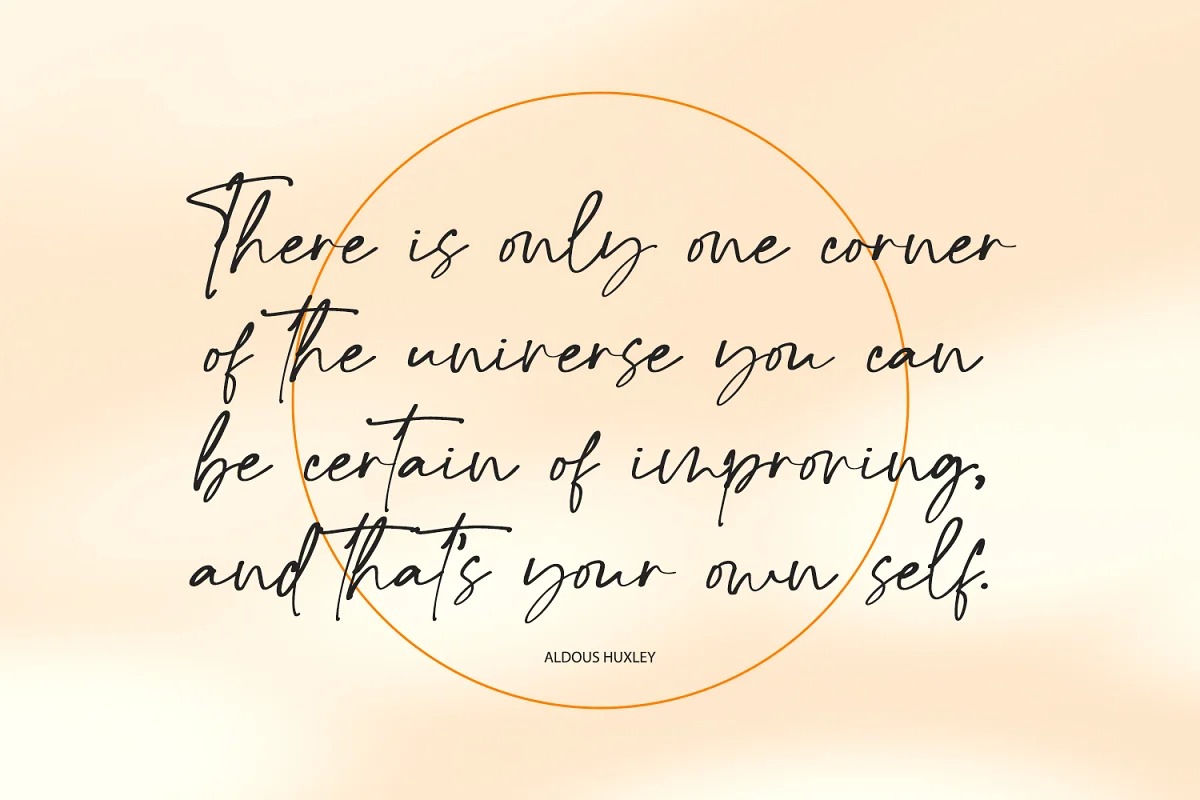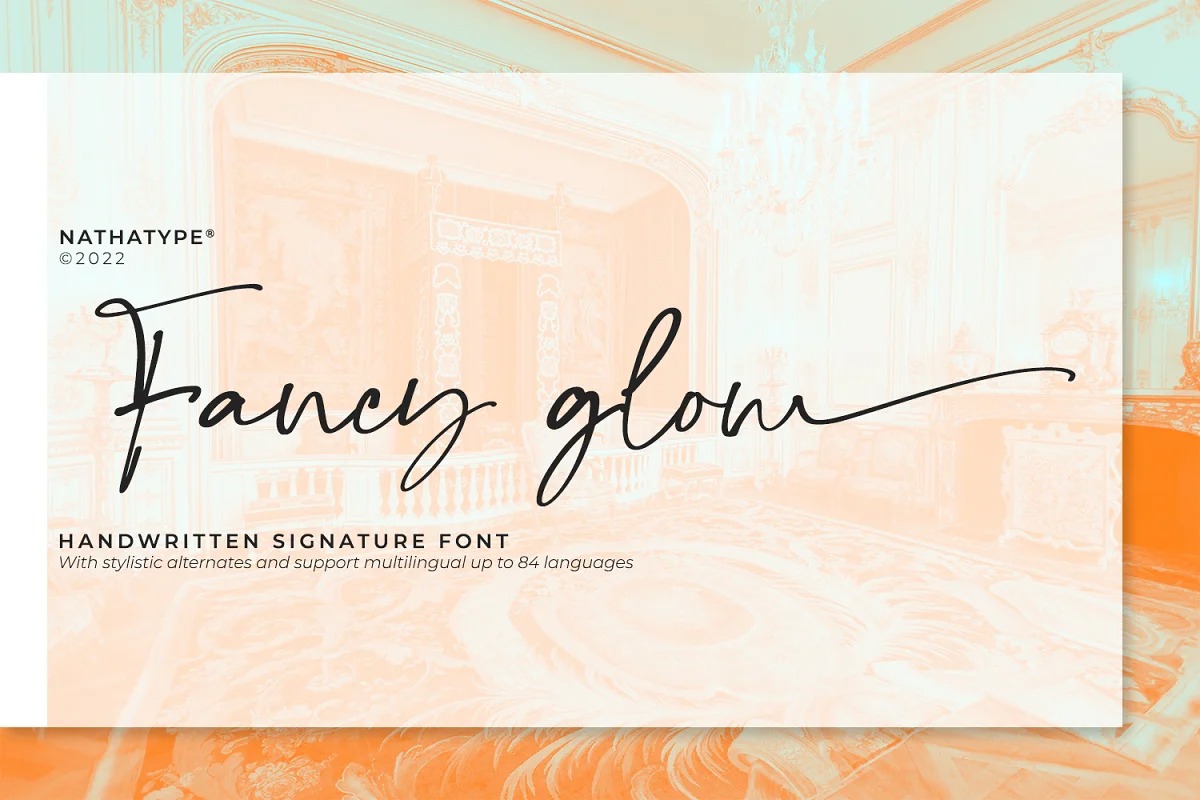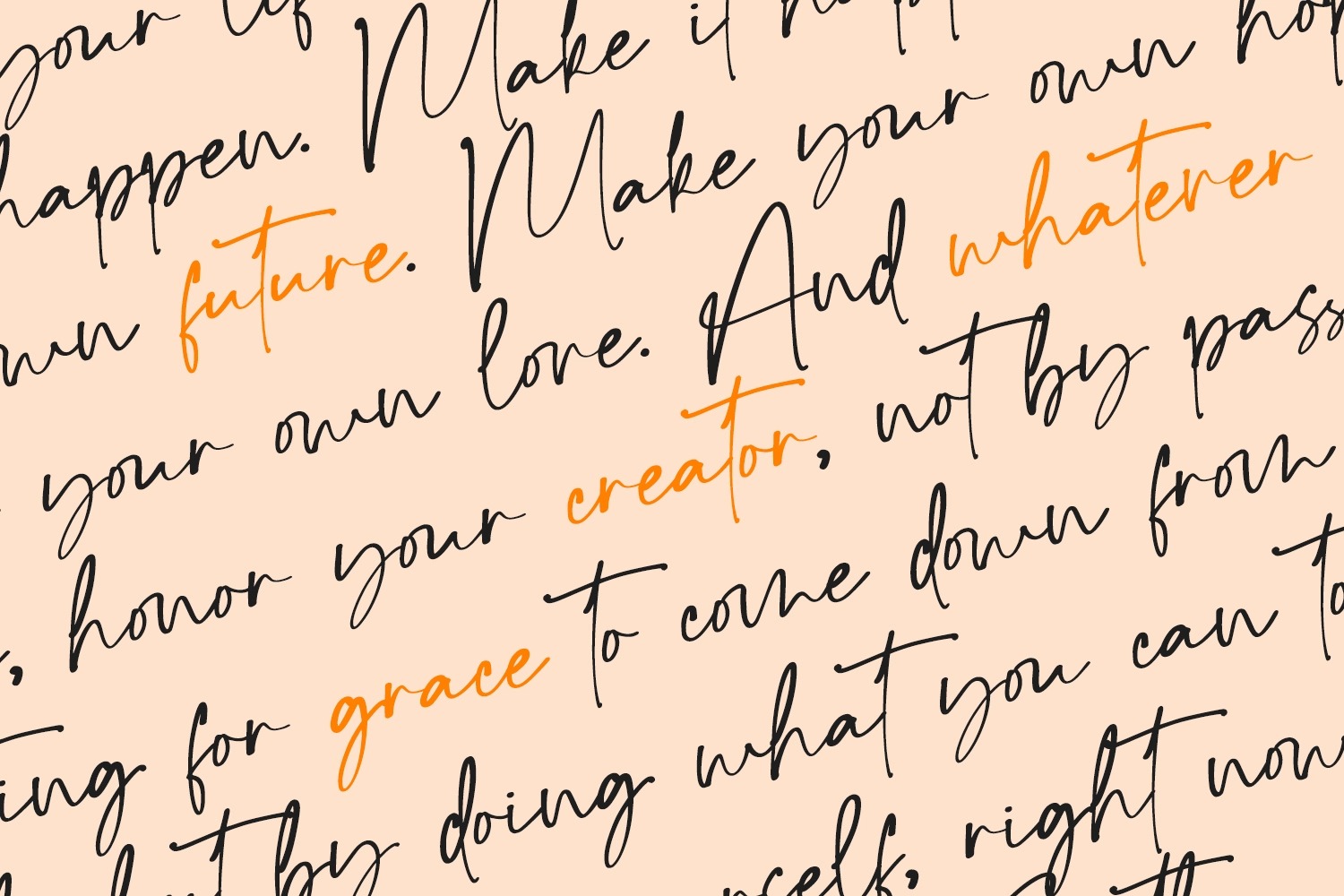
Fancy Glow Handwritten Font
This is an excellent handwritten script typeface manufactured by Din Studio. The perfect way to brighten up your project. Fancy Glow is a script font that resembles actual handwriting. This one is suited to any sizes of text. The curves of the characters convey a sense of elegance and will not go out of style. In addition, it has more fascinating features that allows you maximize your design.